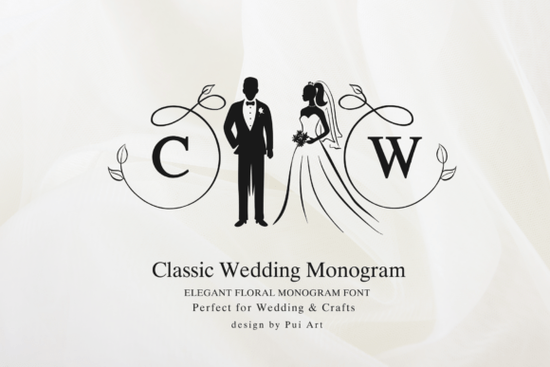
If you're looking for a timeless, elegant touch for wedding designs, the Classic Wedding Monogram Font delivers exactly that. This decorative font features a clean circle layout with refined silhouettes of a bride and groom, wrapped in delicate swirl accents. It’s ideal for invitations, personalized gifts, and handmade decor that feels both classic and personal.
What Makes This Monogram Font Stand Out?
The design centers on symmetry and grace each letter is thoughtfully shaped to fit within a circular frame, making it perfect for use on wedding stationery, bridal party gifts, or custom signage. The subtle details, like flowing lines and balanced spacing, give it a polished look without overwhelming your project.
It works well across various formats: from digital prints to physical crafts. Whether you’re using Cricut machines, laser cutters, or engraving tools, the font holds its shape and clarity at any size. That consistency helps keep your final product looking professional and intentional.
Perfect for Wedding & Bridal Projects
Many couples want their big day to reflect their unique story and this monogram font helps tell it beautifully. Use it on:
- Wedding invitations and save-the-dates
- Guest books and thank-you cards
- Table numbers and seating charts
- Personalized gifts like engraved cutting boards or mugs
- Signage for venues, photo booths, or welcome areas
Because the design is minimal yet expressive, it pairs well with other fonts and colors. You can keep things simple with black ink on ivory cardstock, or go bold with gold foil accents for a luxurious feel.
How to Use It in Your Creative Work
For crafters and small business owners, this font adds instant sophistication to print-on-demand items. Try pairing it with soft pastel backgrounds or textured paper for a vintage-inspired vibe. If you’re designing for Etsy or social media, it gives your products a premium edge without needing complex editing.
Designers working on branding for wedding planners or boutiques may also find value in this font. It’s great for logo elements, business cards, or seasonal promotions tied to weddings and anniversaries.
It’s especially useful if you're creating layered designs. The clean outlines make it suitable for laser cutting or vinyl projects where precision matters. No jagged edges or broken strokes just smooth, reliable results every time.
Final Thoughts
The Classic Wedding Monogram Font isn’t just another decorative typeface it’s a tool for storytelling through design. Its balance of tradition and simplicity makes it a reliable choice for creators who value quality and clarity.
Whether you’re crafting a single invitation or building a full wedding brand, this font supports your vision with elegance and ease.